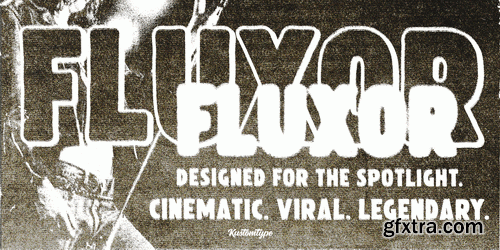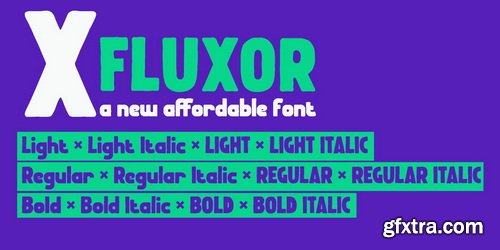
Born from “Flux” + “Accelerator” – a font that bends motion into every letter. 6 Fonts in 3 weights. Infinite vibes. From whisper-light to earth-shaking bold, Fluxor’s the secret weapon for designers craving grit + grace. Dominate posters, films, ads—own the visual noise.